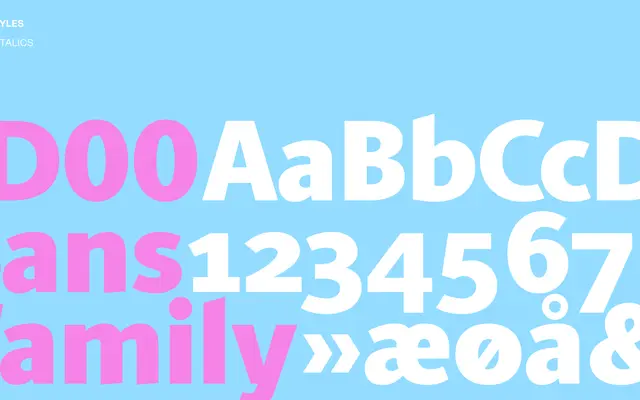
ID00 Sans
A grotesque sans from Playtype, shaped around identity work and neutral typographic utility.
ID00 Sans sits within Playtype's catalogue as a clean grotesque designed with identity applications in mind. The page offers little technical detail, but the naming convention and foundry context suggest a restrained, functional character suited to branding and editorial use. Further weight and style information is not available from the published page.
The name and minimal page content suggest a neutral, identity-oriented grotesque sans; the 'Sans' suffix and foundry context point to a clean, functional sans-serif design.